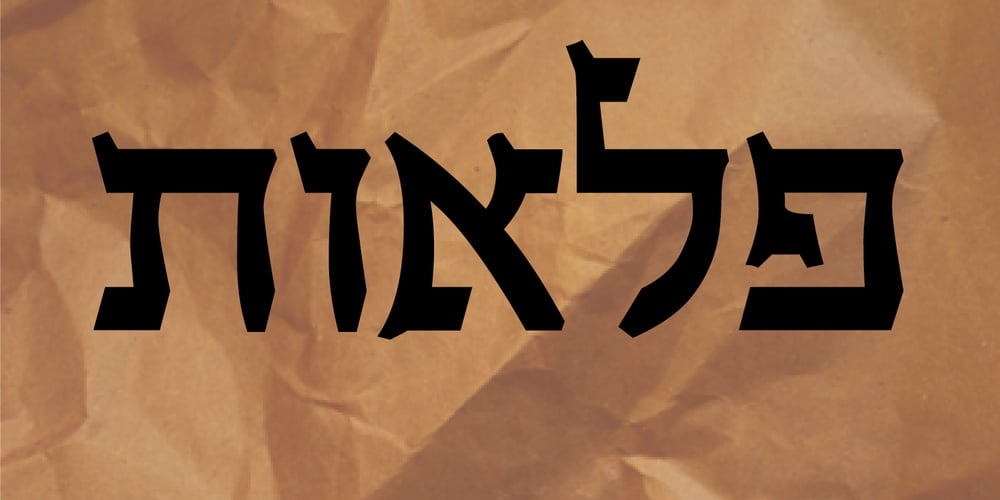
Kodesh MF Font Family was designed by Eliyahu Fried and published by Masterfont. Kodesh MF contains 2 styles and family package options. Inspired by old engraving and tombstones. This font is unique by its flow and contrast, enabling traditional typeface gain a new and clear flow and rhythm.